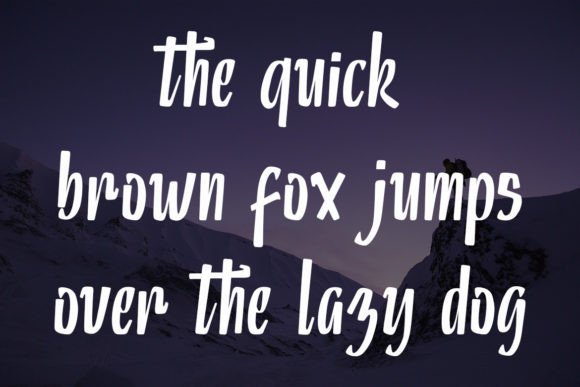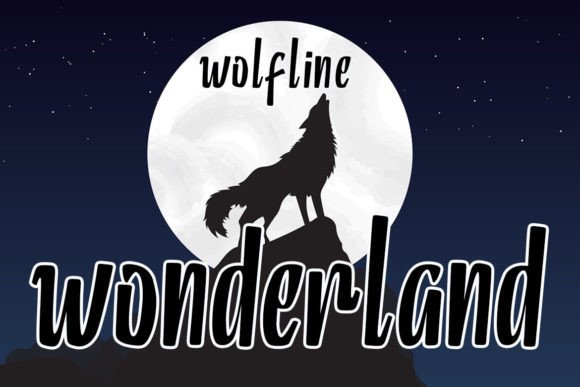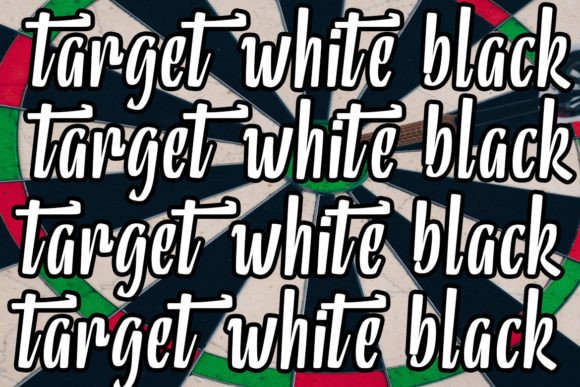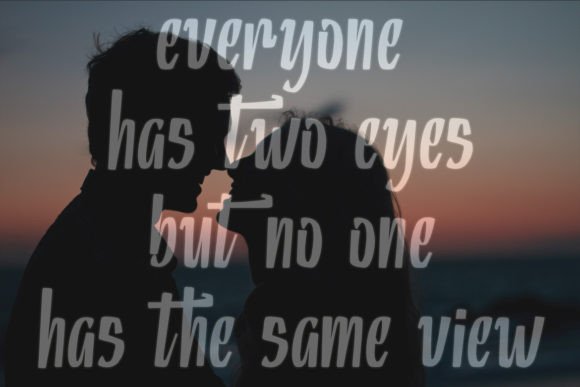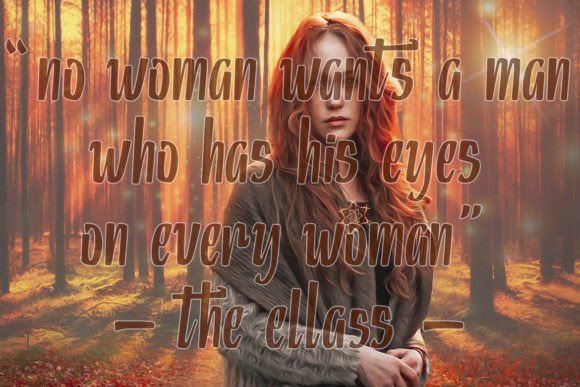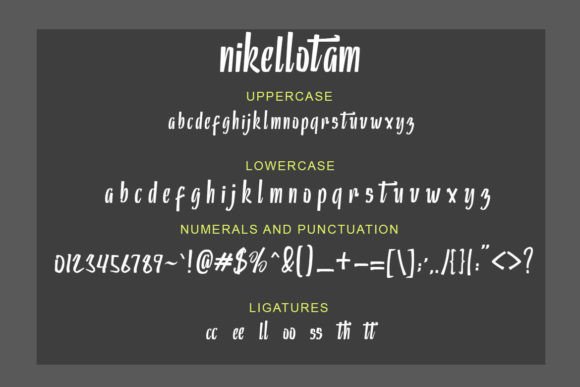
Introduction to Nikellotam Font
Have you ever been working on a creative project, pouring your heart and soul into it, and then suddenly, you stumble upon the perfect design resource that takes it to the next level? For designers, this moment is pure magic. It’s when all the elements come together, and the project starts to shine. This is exactly what happens when you add the Nikellotam Font to your design arsenal.
This lovely script font is a game-changer for any creative project. Its charming, playful characters seem to dance along the baseline, adding a touch of whimsy and personality to your designs. Whether you’re working on a branding project, a social media campaign, or a blog post, the Nikellotam Font has the potential to elevate your creation and make it stand out from the crowd.
Key Features of Nikellotam Font
- Perfect for logos, branding, and other design elements
Honest Review: Nikellotam Font
- Unique and modern design
- Highly legible
However, there are some limitations: ⚠️ The Nikellotam Font is a bit on the thin side, which may not be suitable for all designs. Additionally, it’s not as extensive as some other font collections, with only a few weights and styles available.
Overall, I’m impressed with the Nikellotam Font as a design resource. While it may not be perfect, it’s a great addition to any designer’s toolbox, and I appreciate its unique qualities and transparent background.
Nikellotam Font
Tips for Getting the Most Out of Nikellotam Font
Use Nikellotam Font for headings and titles to create a visually appealing design. The transparent background of the font allows for seamless integration with images and other design elements. Experiment with different font sizes and styles to achieve the desired visual effect.
Nikellotam Font is suitable for various design projects, including logos, business cards, brochures, and infographics. Its high-quality design makes it an ideal choice for creative professionals and hobbyists alike.